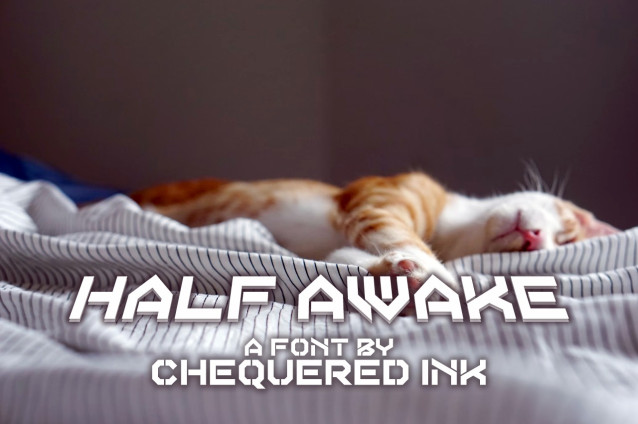
Half Awake Display Font
Half Awake Display Font Half Awake is a bold, futuristic display font designed by Chequered Ink.It features sharp geometric shapes, angular cuts, and a strong sci-fi feel, making it perfect for posters, game titles, logos, headlines, and tech-inspired designs. The font’s distinctive, edgy letterforms create a sense of energy and modernity while remaining highly eye-catching.